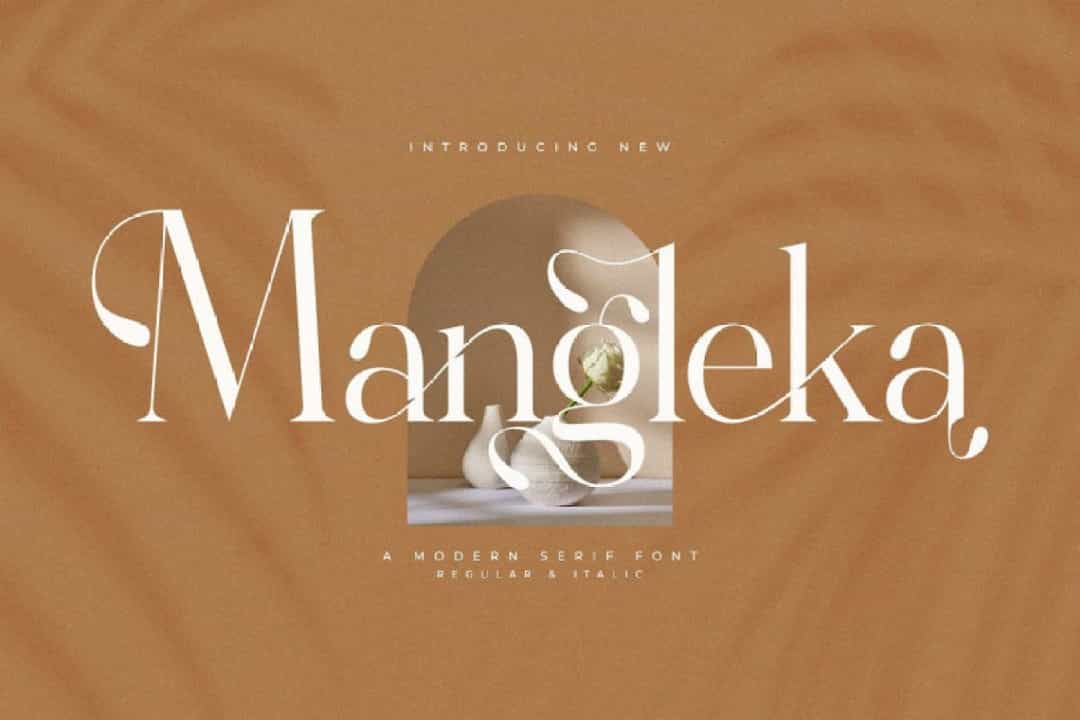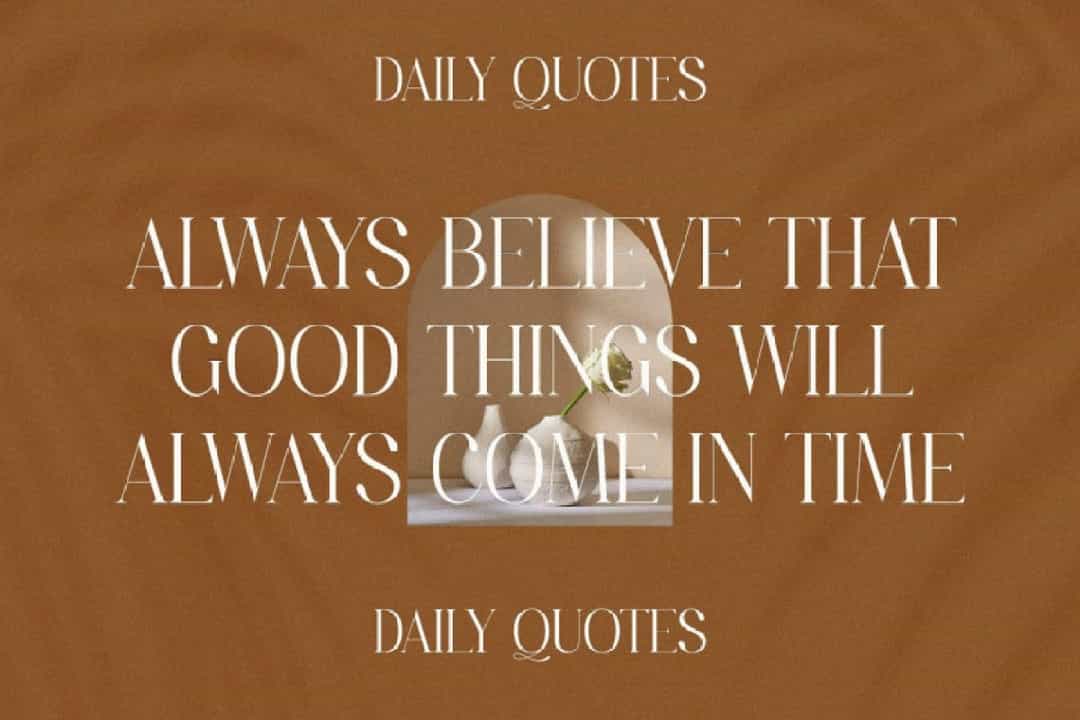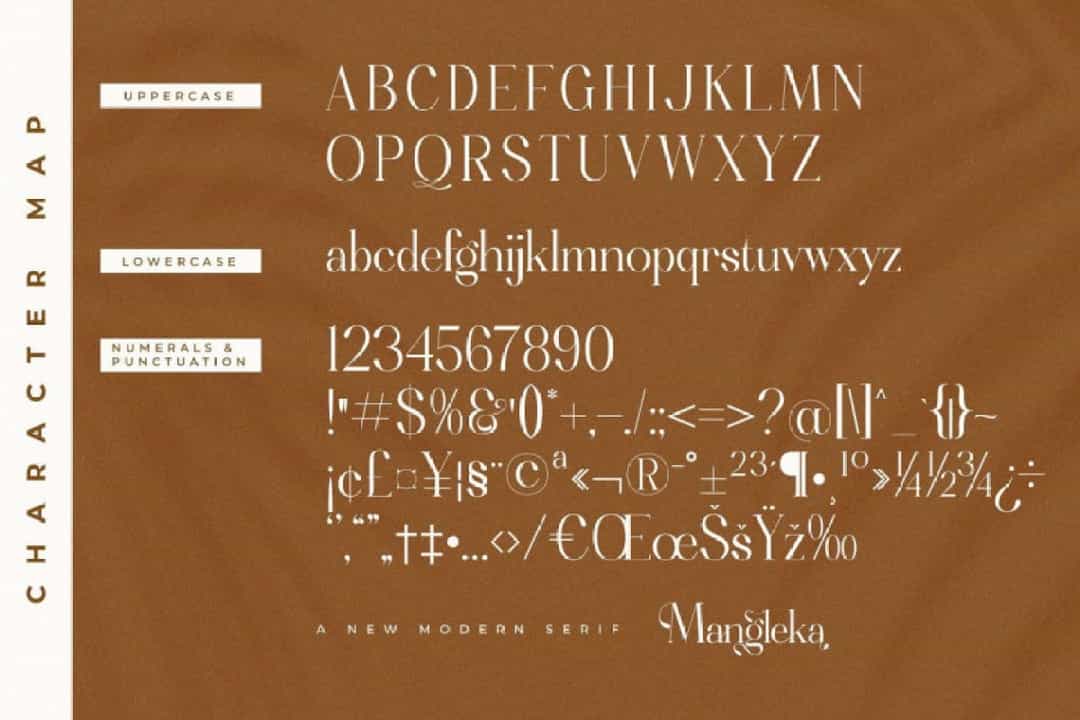
Mangleka is an elegant and modern serif typeface, distinguished by its distinguished style and contemporary look. Perfect for creating classy logos, movie or book titles, fashion label magazines, clothes letters and quotes among many other things, Mangleka can help bring any design or image together in an eye-catching and elegant package.